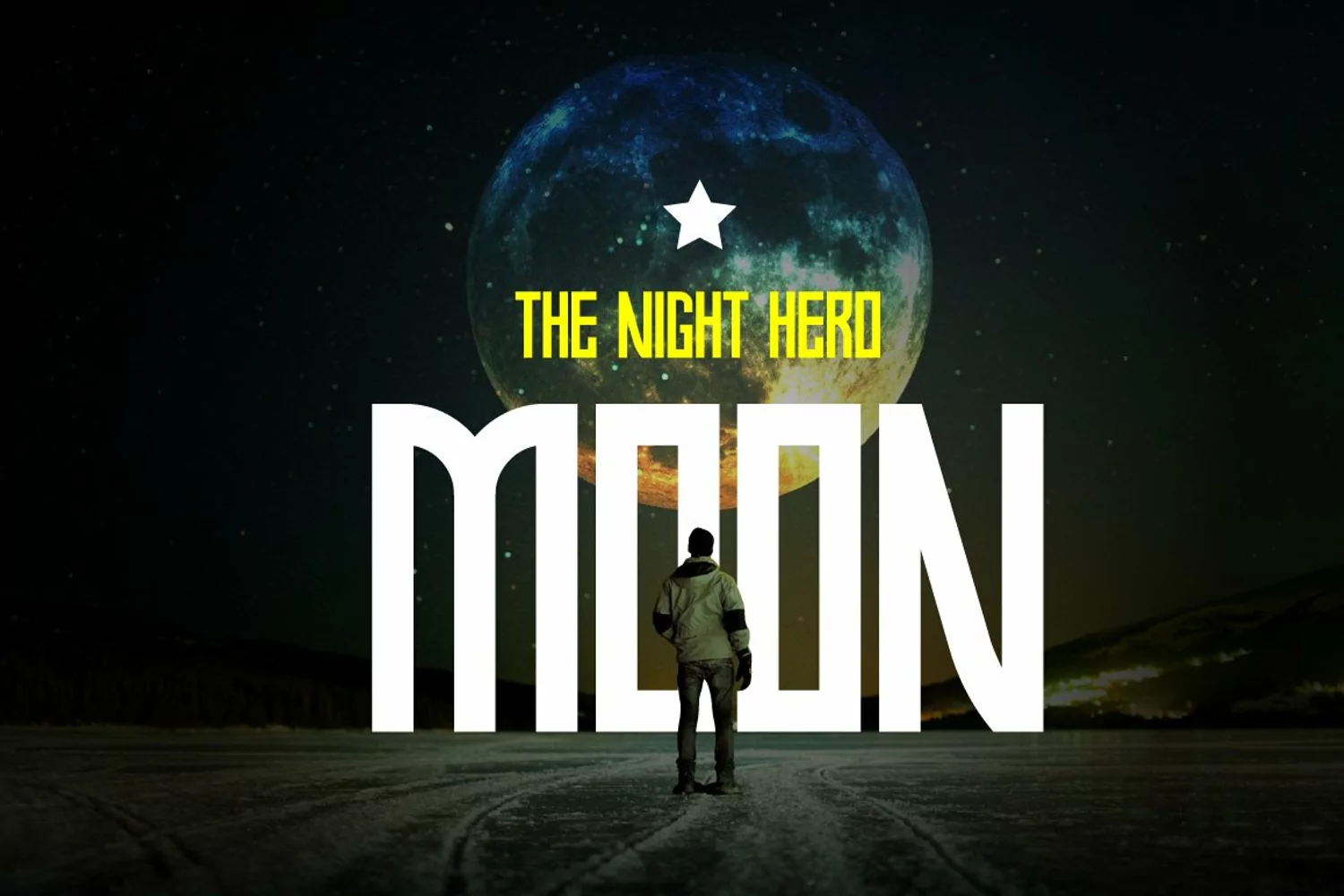
Syukur
Syukur is luxury, bold and clean typeface that works really well for
headlines, logos, posters, book covers and many more.
Syukur supports :
Numbers
Punctuations